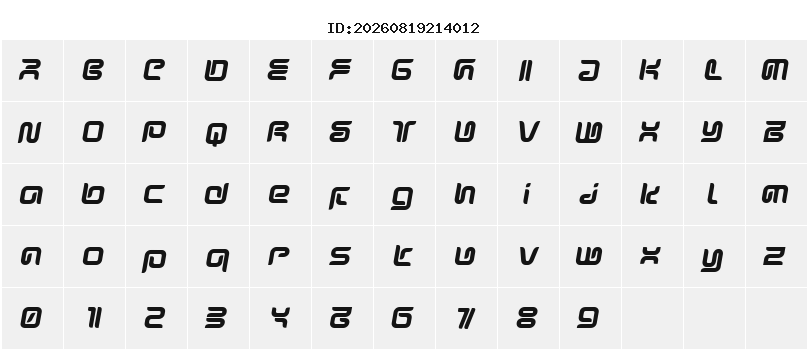
Sharp Preview
About Sharp.ttf
Sharp.ttf is a modern, elegant sans-serif font designed for ultimate readability and visual harmony. Perfect for branding, headlines, web design, and print materials.